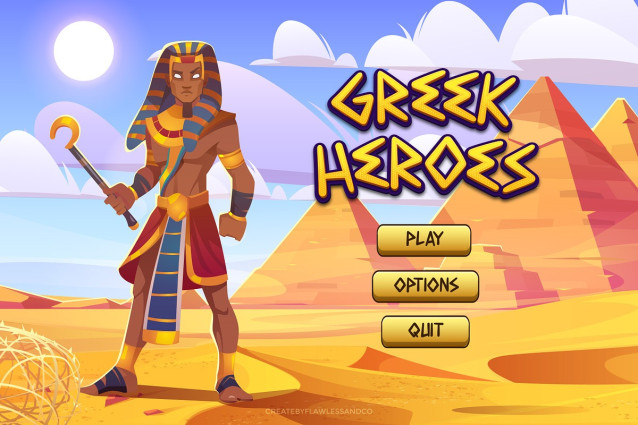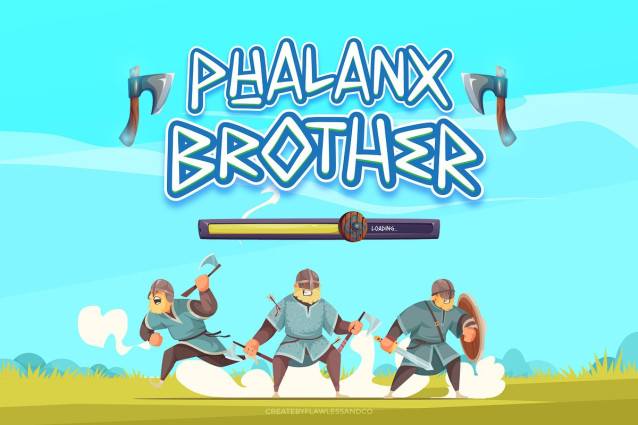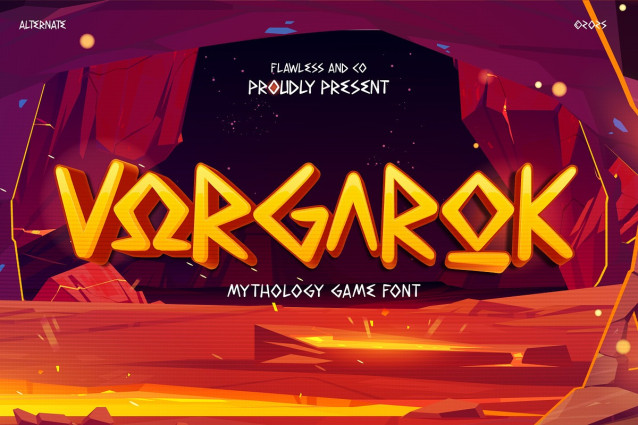
Vorgarok Display Font
Vorgarok Display Font, a powerful gaming font inspired by epic mythology and heroic battles. Each letter is sculpted with a bold and mystical design, capturing the essence of mythical adventures, warrior tales, and forgotten gods. Whether you’re building a game UI, fantasy logo, or cinematic title, Vorgarok delivers unmatched energy and visual strength.